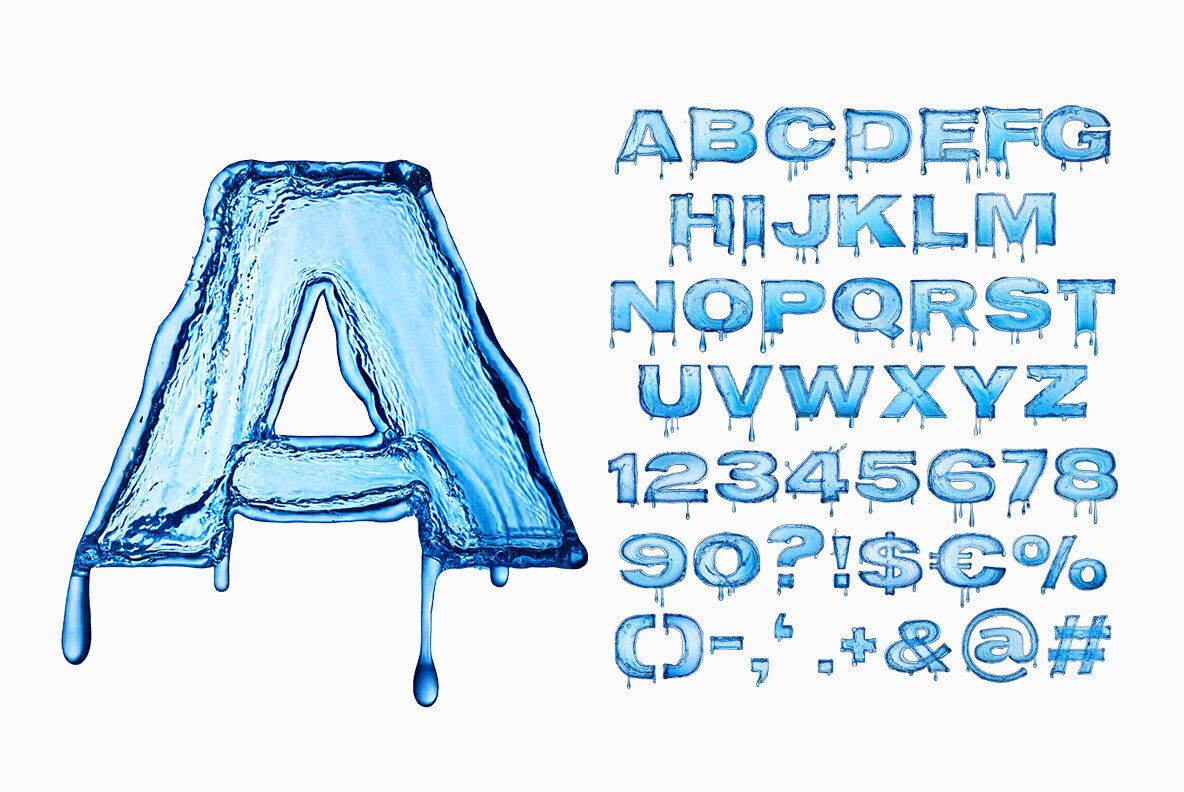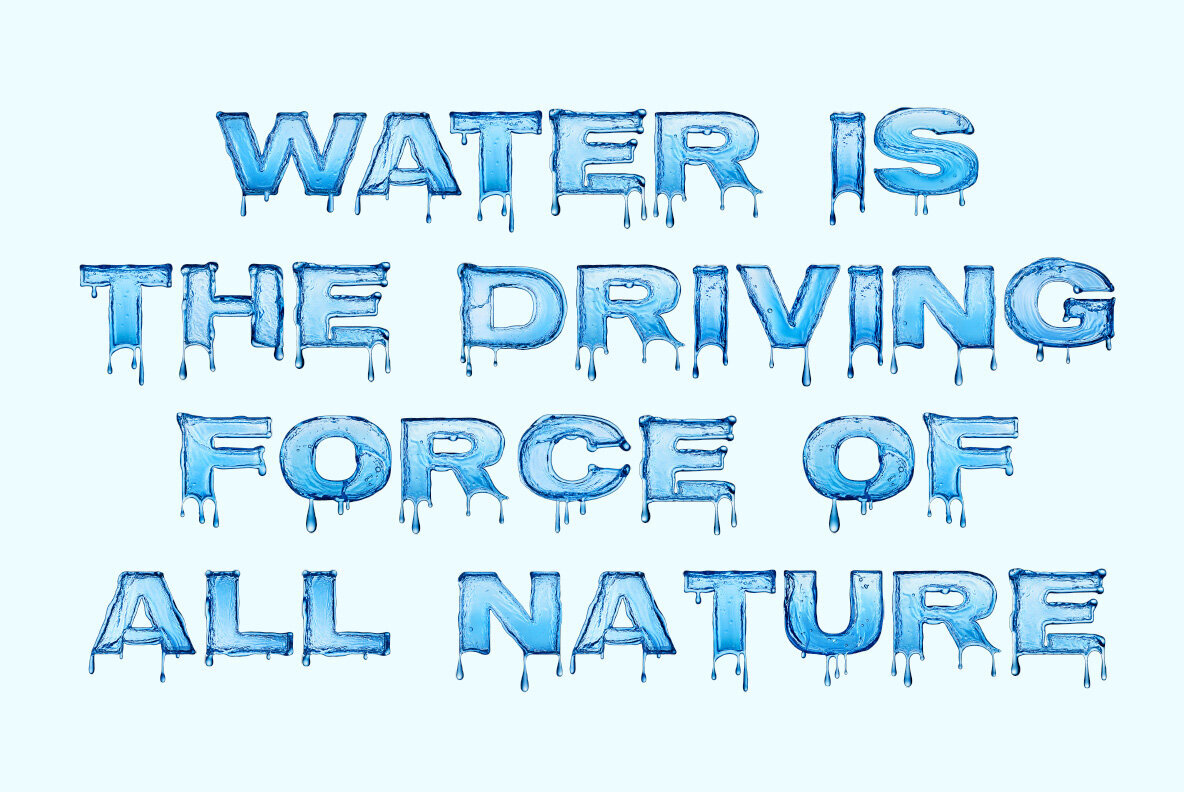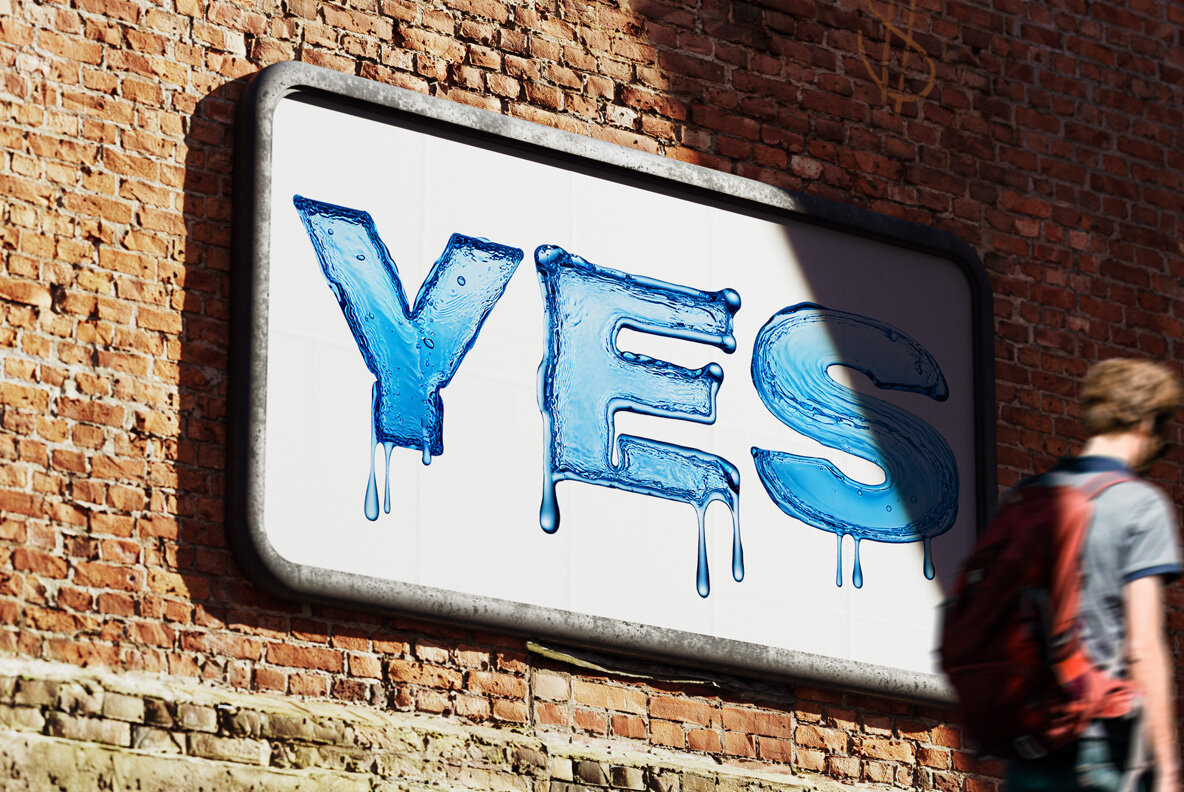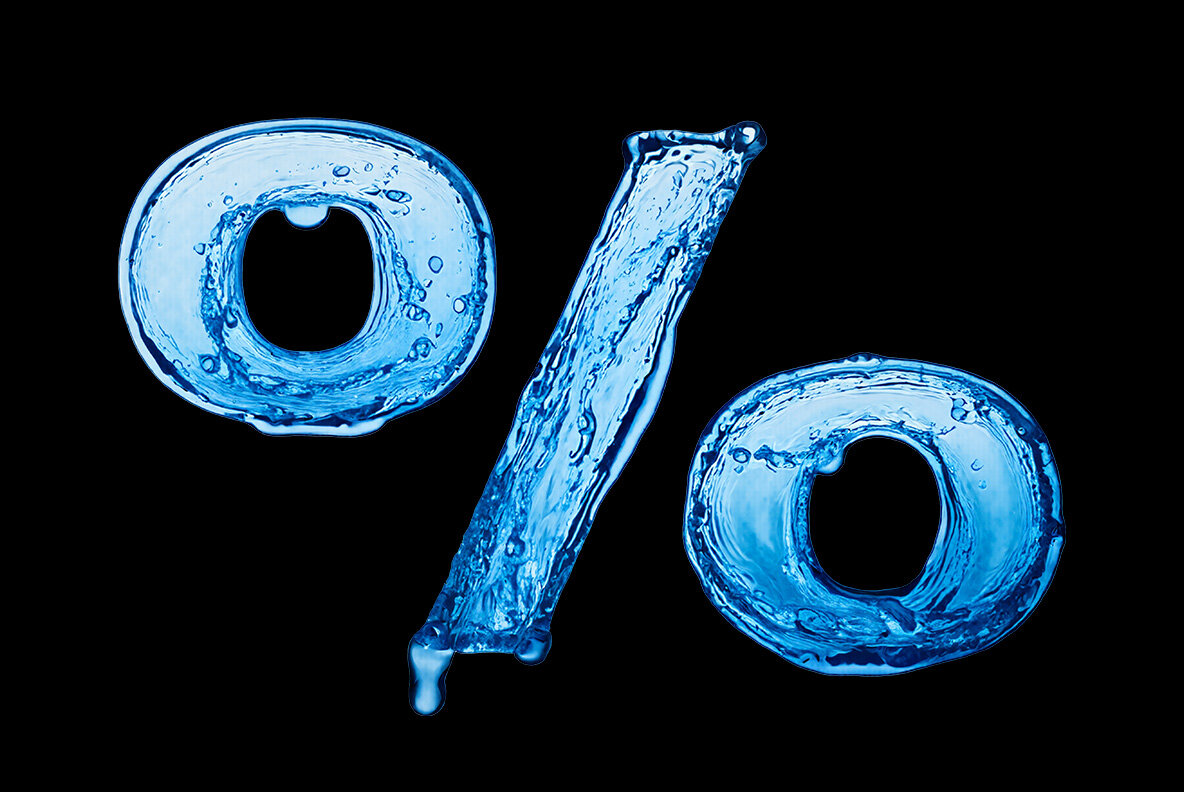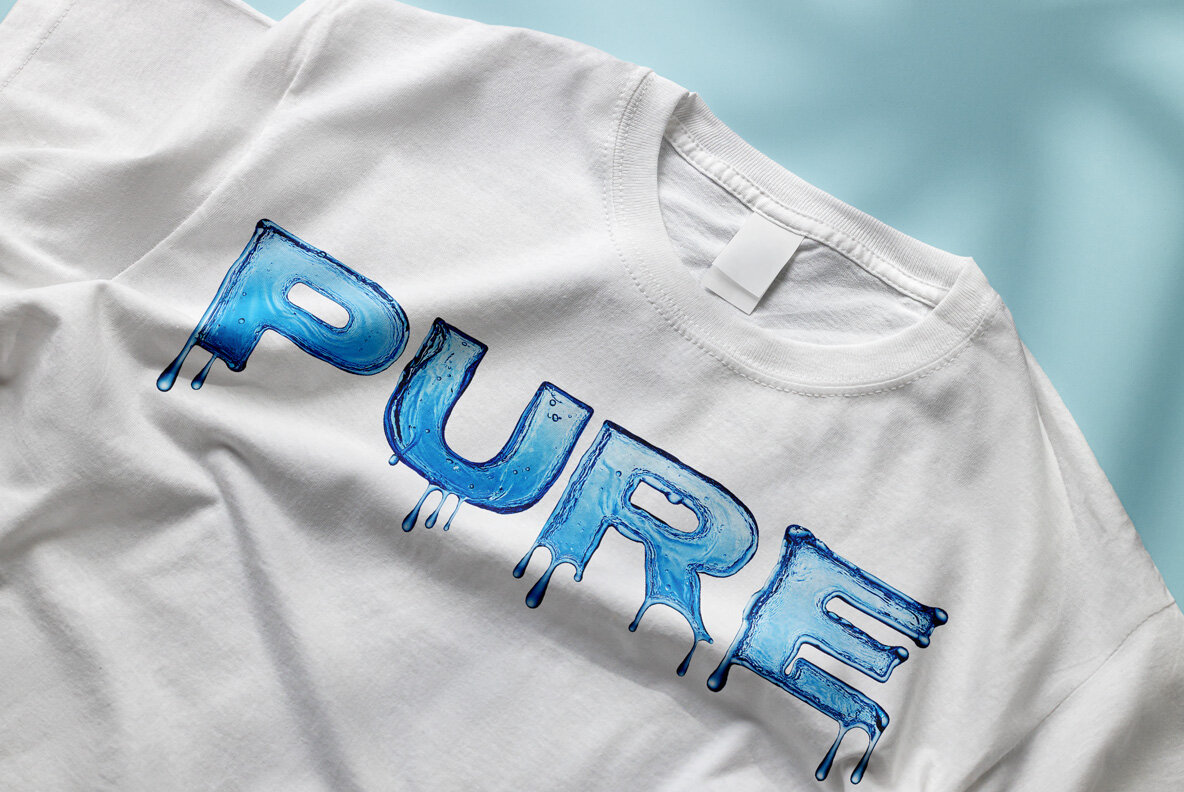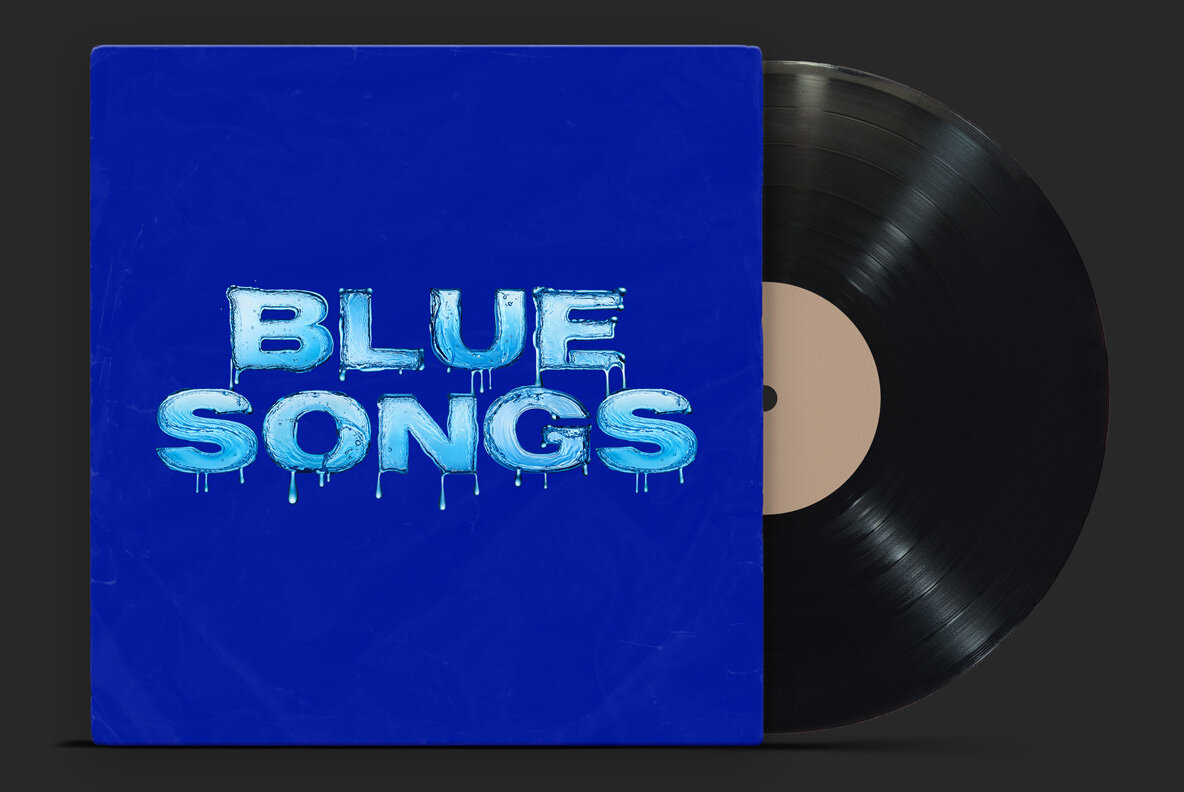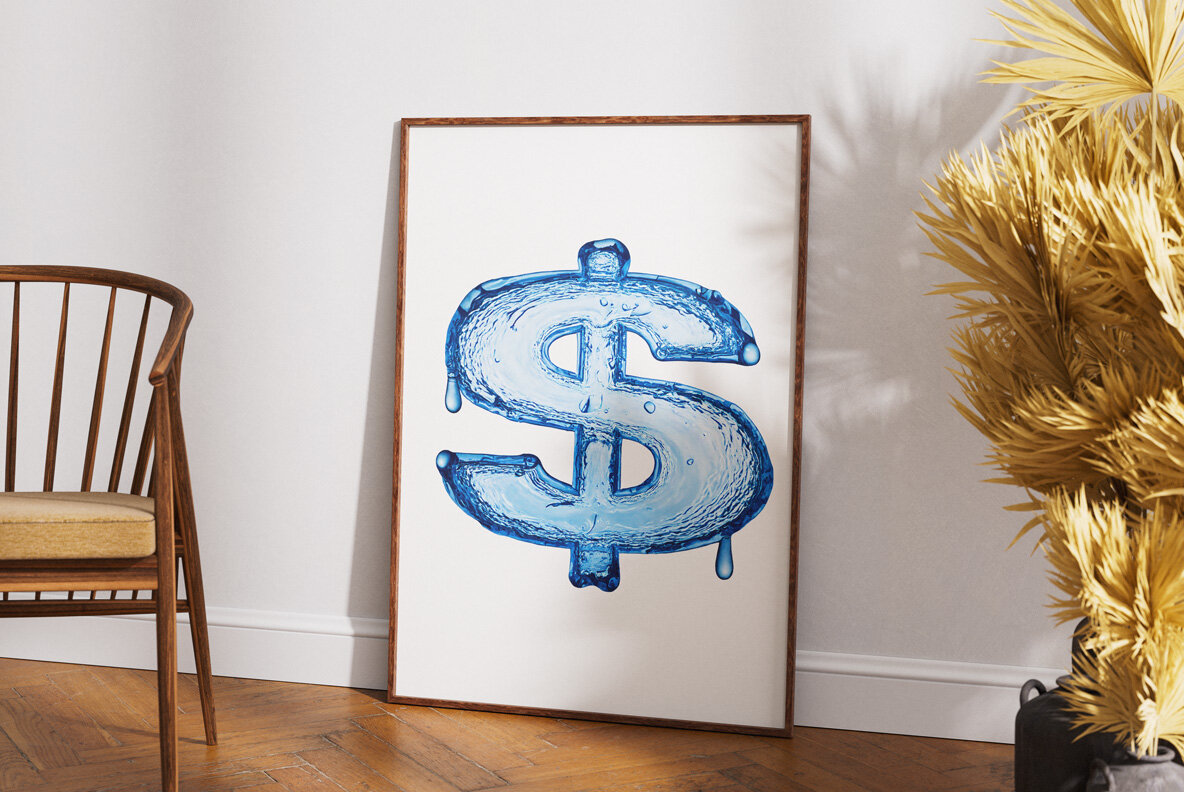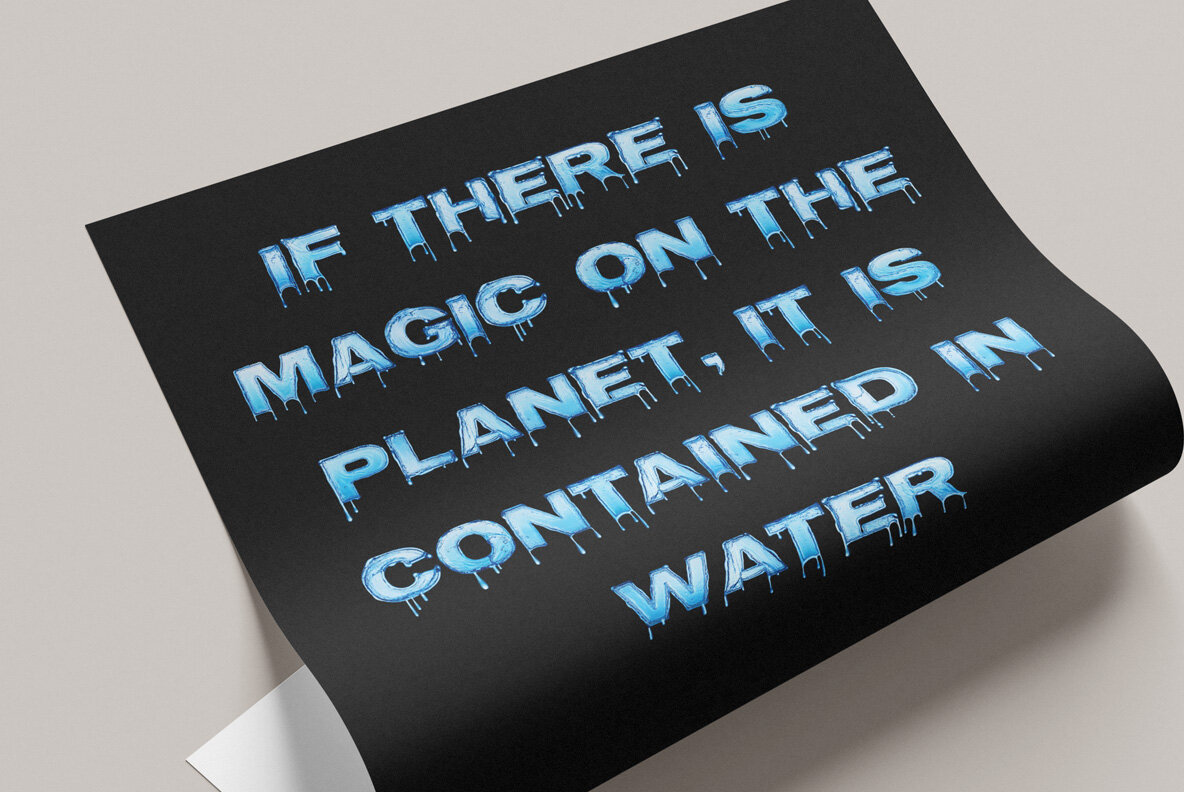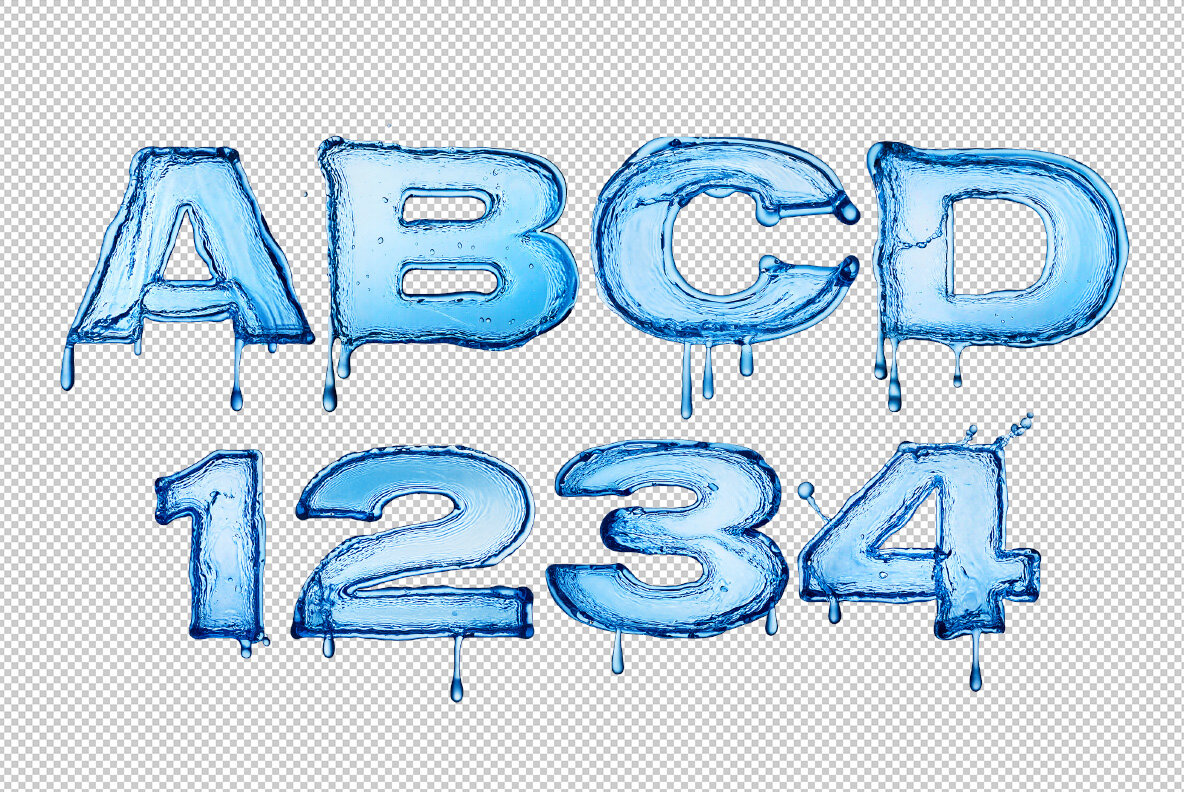
Experience the refreshing essence of nature with this water-inspired font, uniquely crafted to resemble flowing, crystal-clear droplets. Each letter embodies the organic elegance of water, capturing its fluidity and purity, making it an excellent choice for designs that require a touch of realism. This font is particularly well-suited for projects with oceanic themes or clean, dynamic visuals. It's a versatile tool for adding a lively, wet effect to any text-based design.